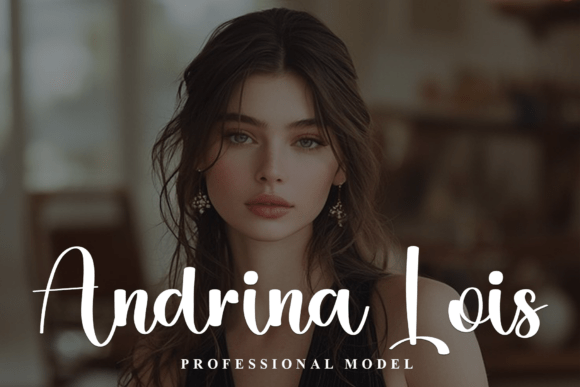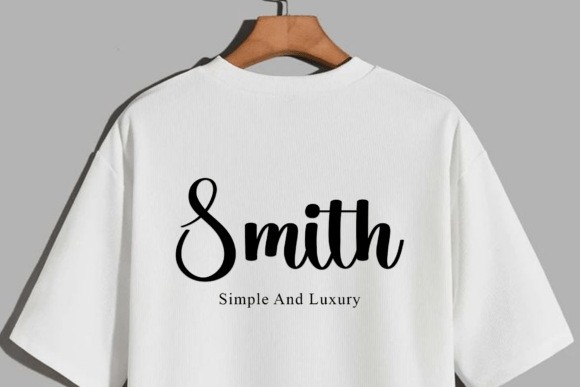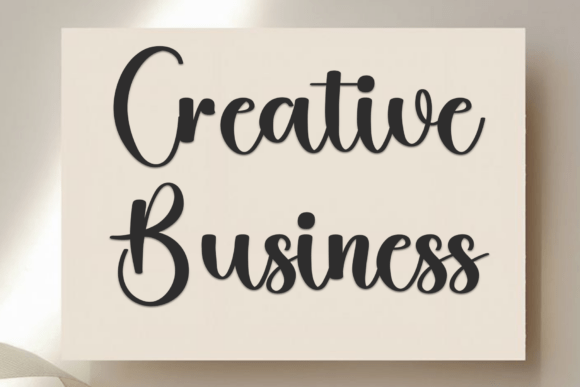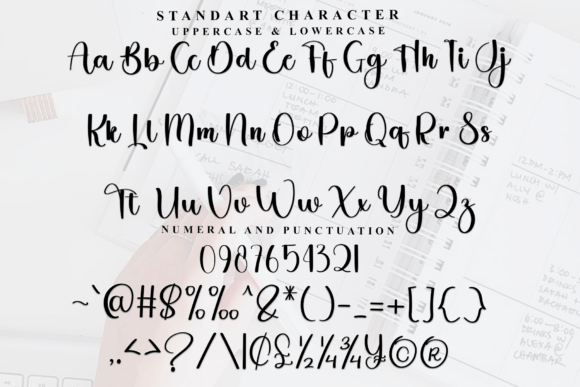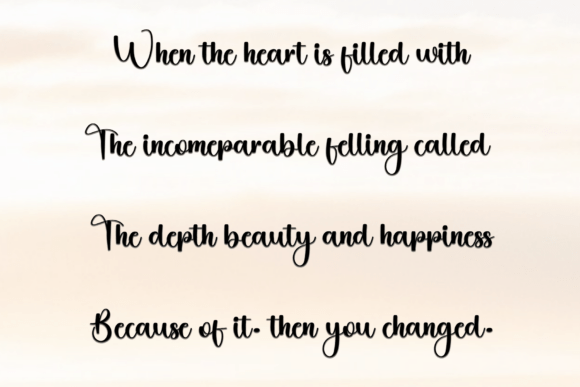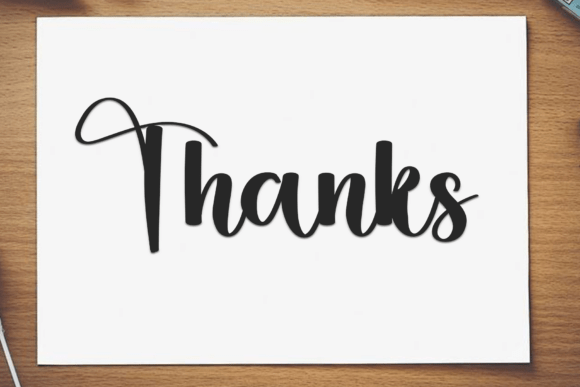
Introducing Everyday Font: A Beautiful and Versatile Typeface
In the world of design, typography plays a crucial role in conveying messages, expressing emotions, and creating visual identities. Among the numerous fonts available, Everyday Font stands out with its unique touch, soft appearance, and distinctive strokes. This beautiful and eye-catching font is designed to add a special character to your designs, making it perfect for various creative projects, crafts, and artistic endeavors.
What Makes Everyday Font Special?
Everyday Font boasts a range of features that set it apart from other typefaces. Its soft and unique touch gives it a distinctive personality, making it suitable for a wide range of applications. The font’s strokes are carefully crafted to create a special character that is both meaningful and versatile. Whether you’re working on a design project, crafting a handmade product, or creating digital content, Everyday Font is an excellent choice.
Key Features of Everyday Font
- Unique and Soft Appearance: Everyday Font’s soft and rounded edges give it a friendly and approachable feel, making it perfect for designs that require a personal touch.
- Distinctive Strokes: The font’s strokes are carefully designed to create a special character that sets it apart from other typefaces.
- Versatile and Meaningful: Everyday Font’s unique personality makes it suitable for a wide range of applications, from design projects to crafts and artistic endeavors.
- Variety of Characters: The font comes with a range of characters, ensuring that you have the perfect symbol or glyph to complement your design.
Compatibility and Applications
Everyday Font offers numerous benefits for designers and crafters, including:
- Enhanced Visual Appeal: The font’s unique and soft appearance adds a touch of elegance and sophistication to your designs.
- Increased Creativity: With its distinctive strokes and variety of characters, Everyday Font inspires creativity and experimentation in your design work.
- Broader Audience Appeal: Everyday Font’s unique personality and soft appearance make it appealing to a wide range of audiences across different artistic and creative fields.
Everyday Font is a beautiful and versatile typeface that offers a unique touch to your designs. Its soft appearance, distinctive strokes, and variety of characters make it perfect for design projects, crafts, and artistic endeavors. Compatible with various applications and platforms, this natural font style is ideal for a wide range of products. Whether you’re a designer, crafter, or artist, Everyday Font is an excellent addition to your toolkit, enhancing your designs and inspiring creativity.